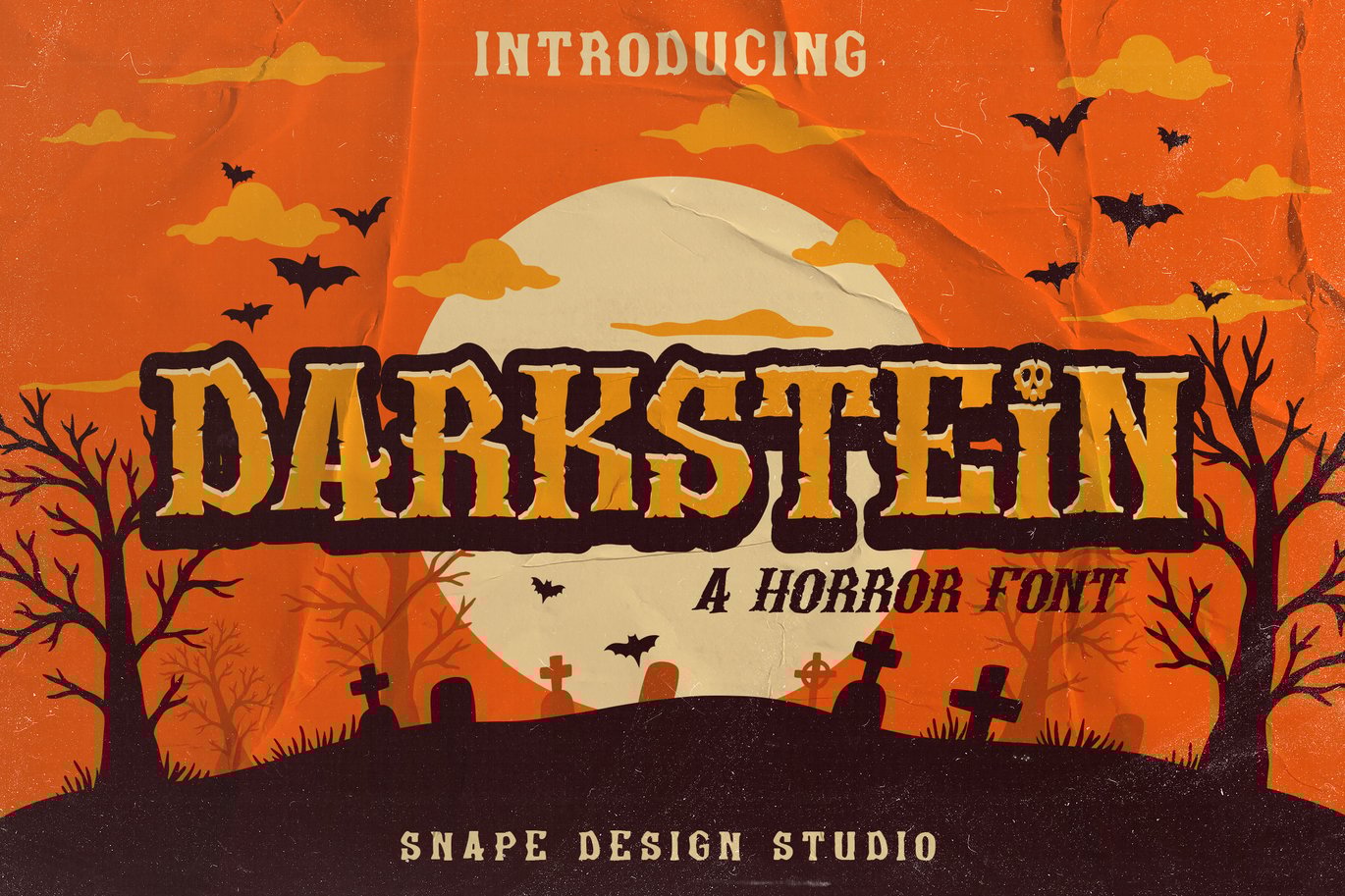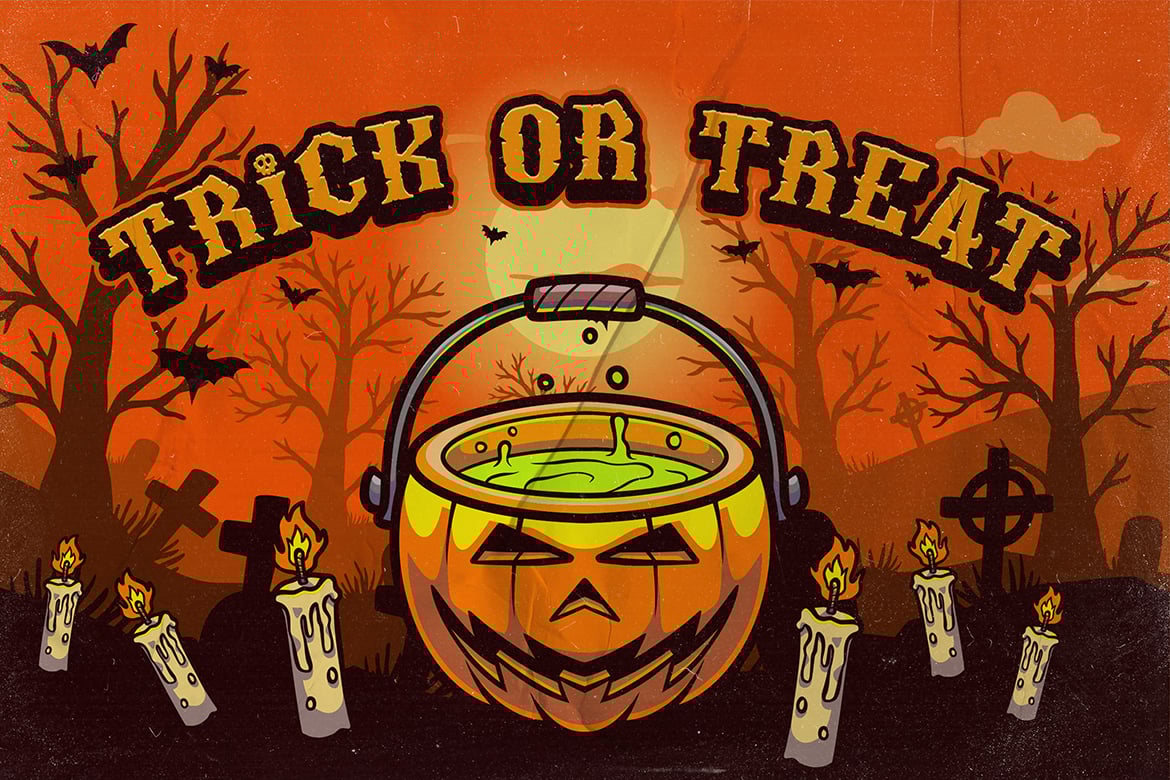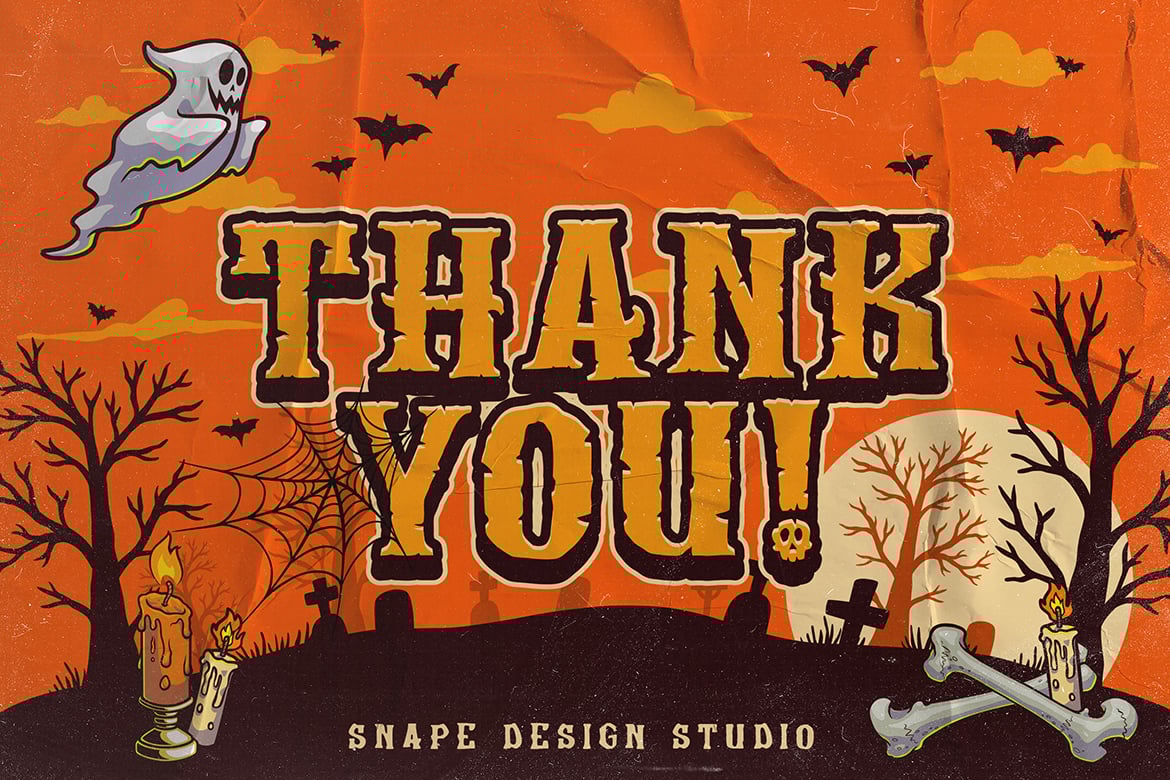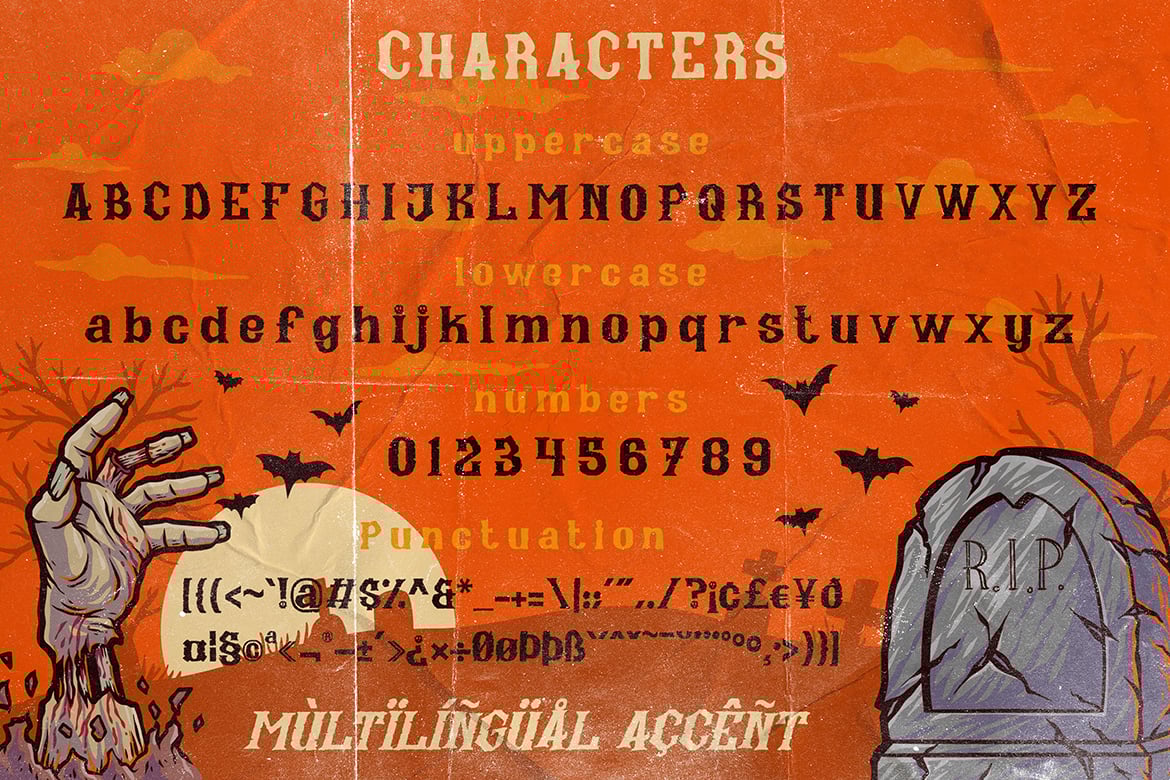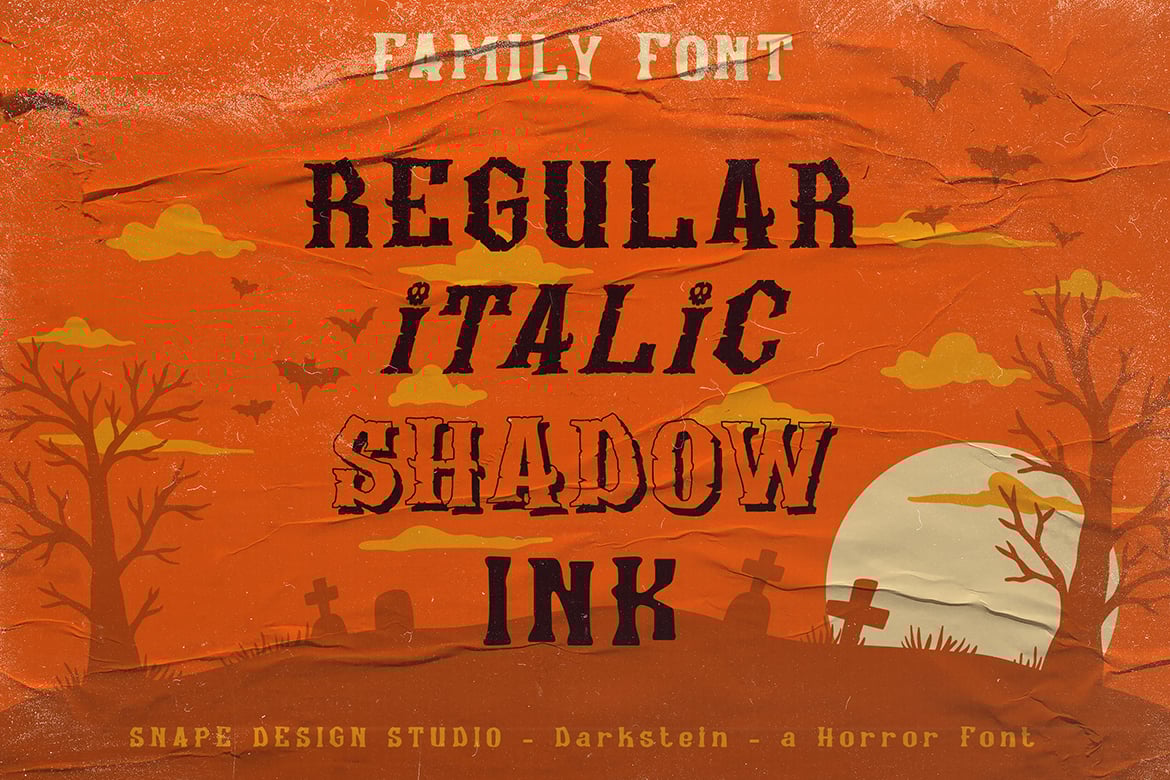
Darkstein – Horror Font
Darkstein is a horror, scary, playful and halloween font, perfect for your halloween party poster or some scary design! Also suitable for movie, documenter, film, logo, poster, game, book cover, headlines, title and many more projects. Add this font to your creative ideas and notice how it will make them stand out!